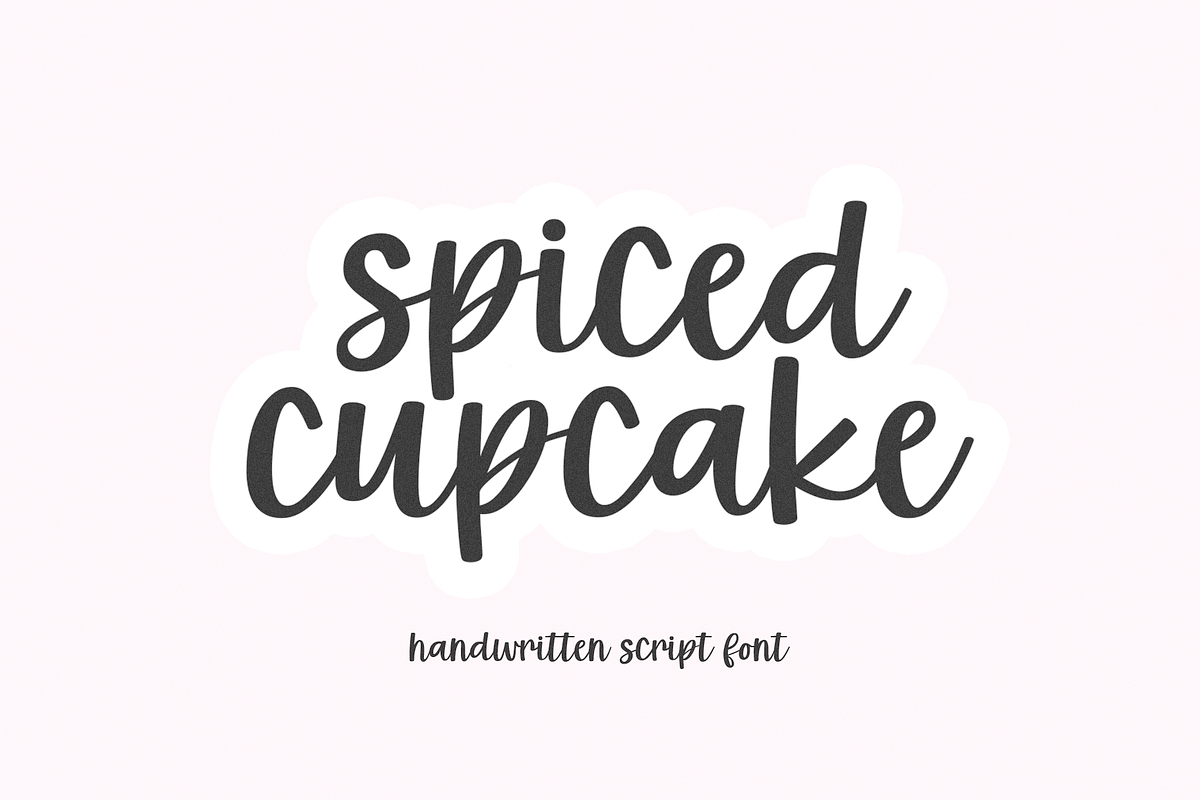
Spiced Cupcake | Modern Script Font Free Download
Sweet, stylish, and full of personality, Spiced Cupcake | Modern Script Font Free Download is a delightful handwritten typeface that blends modern flair with a playful twist. Perfect for logos, social media graphics, wedding invitations, product packaging, and DIY projects, this script font adds warmth and charm to any design.
With smooth curves, elegant swashes, and a natural handwritten flow, Spiced Cupcake brings a casual yet refined look that feels both friendly and fashionable. It’s ideal for creatives who want their typography to stand out with a personal, expressive touch.